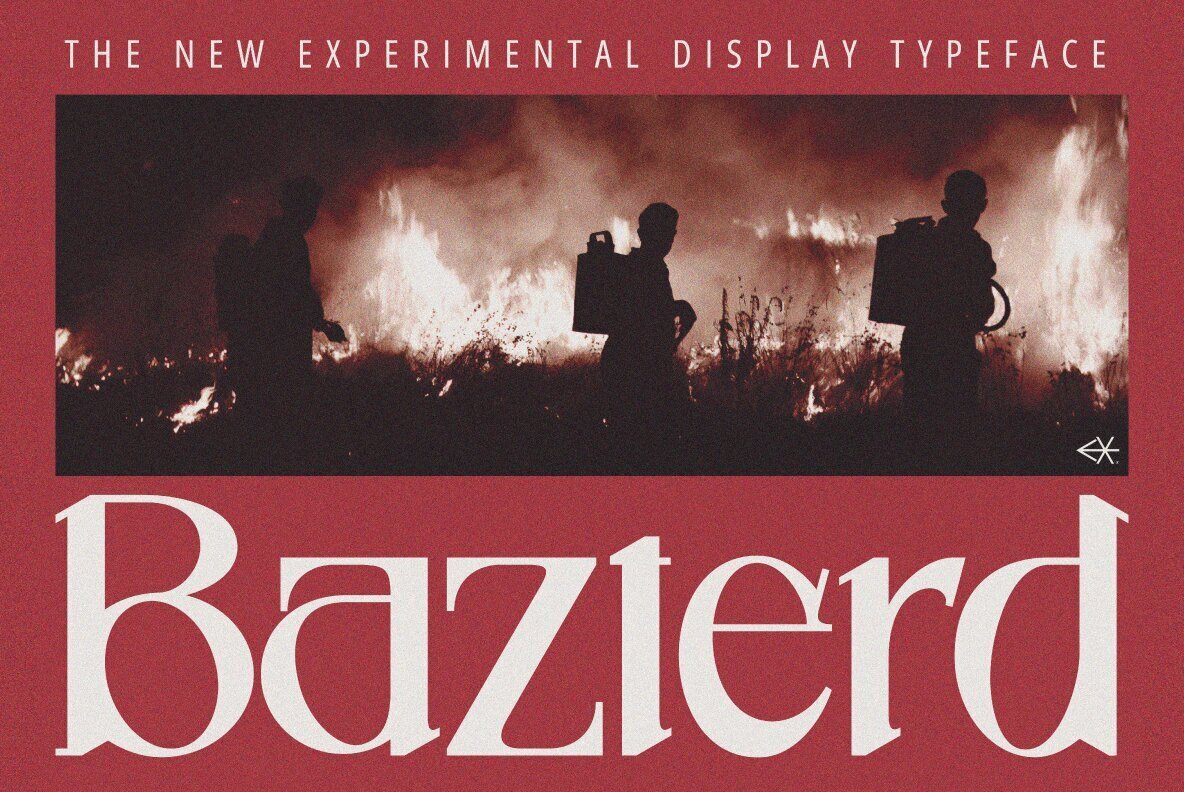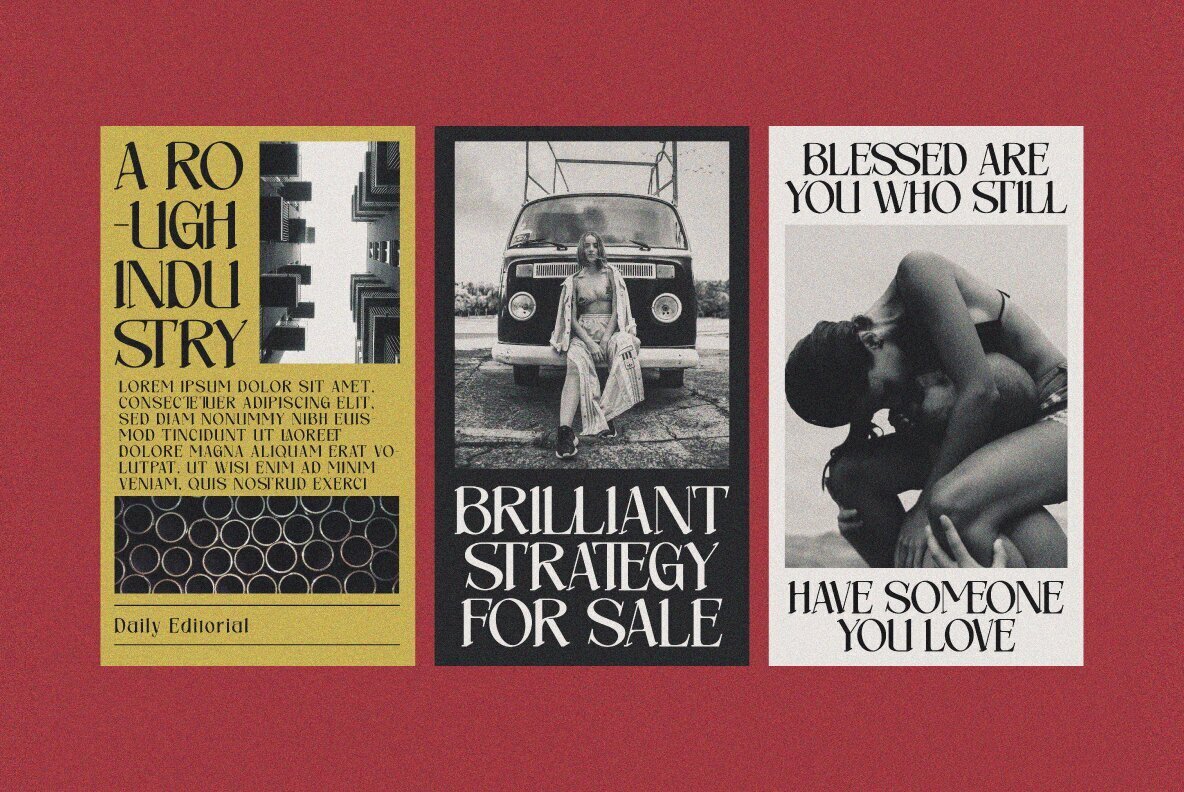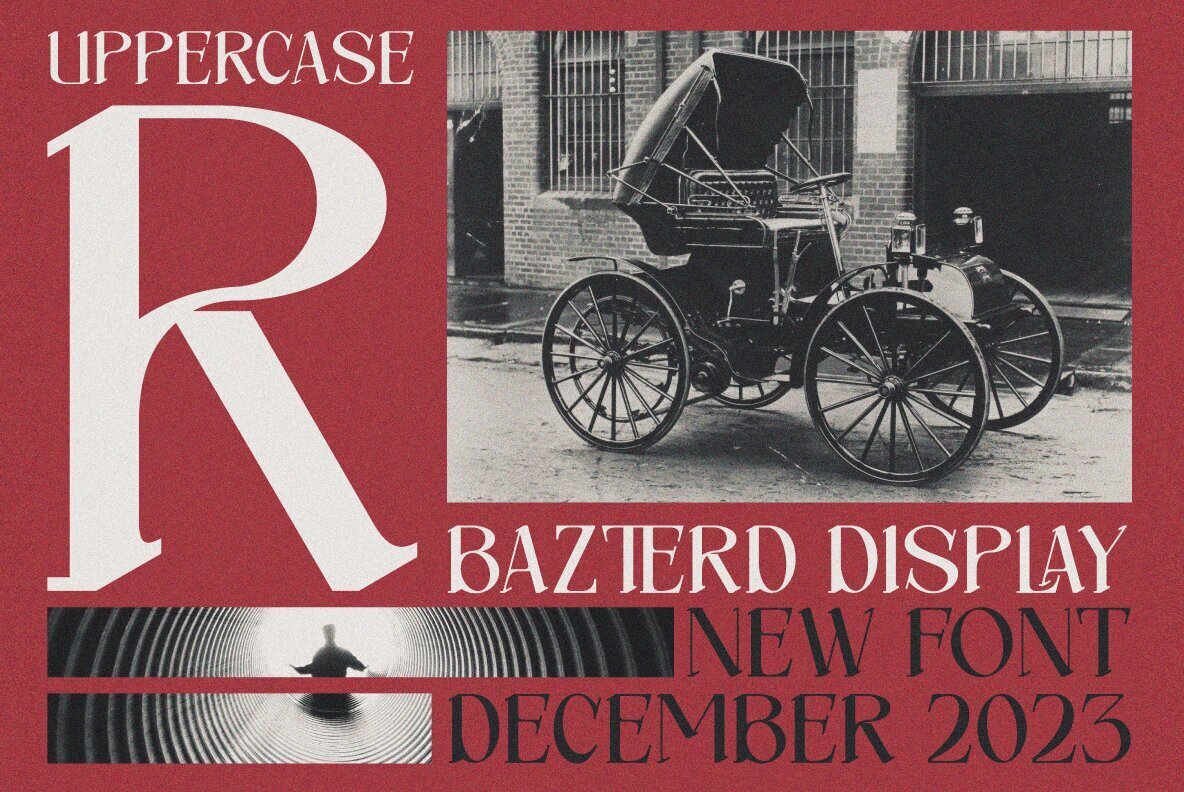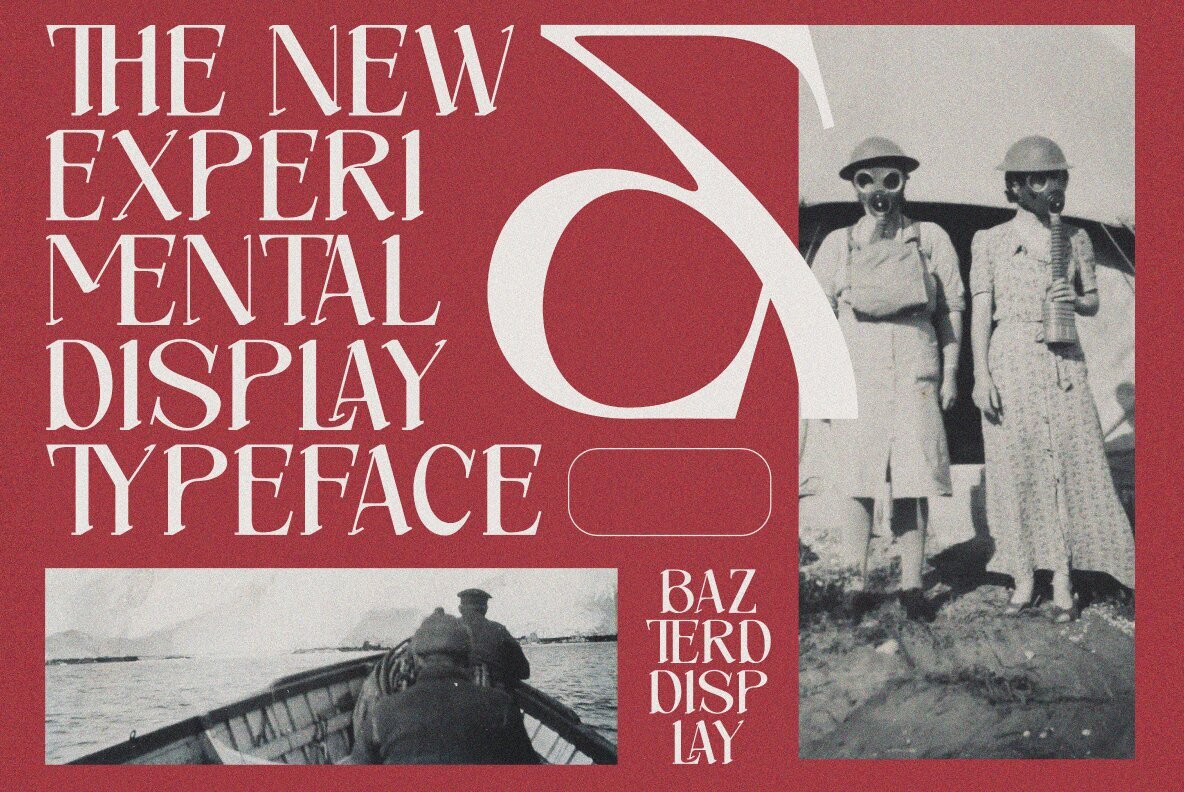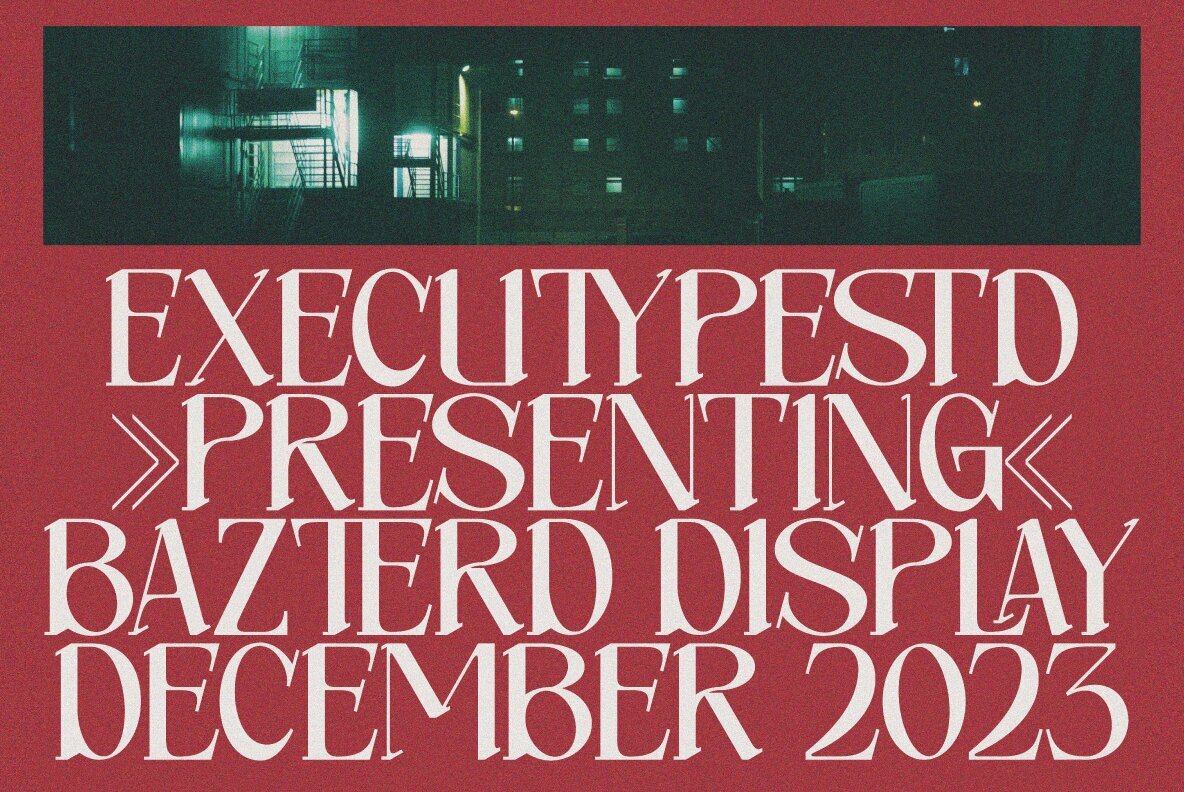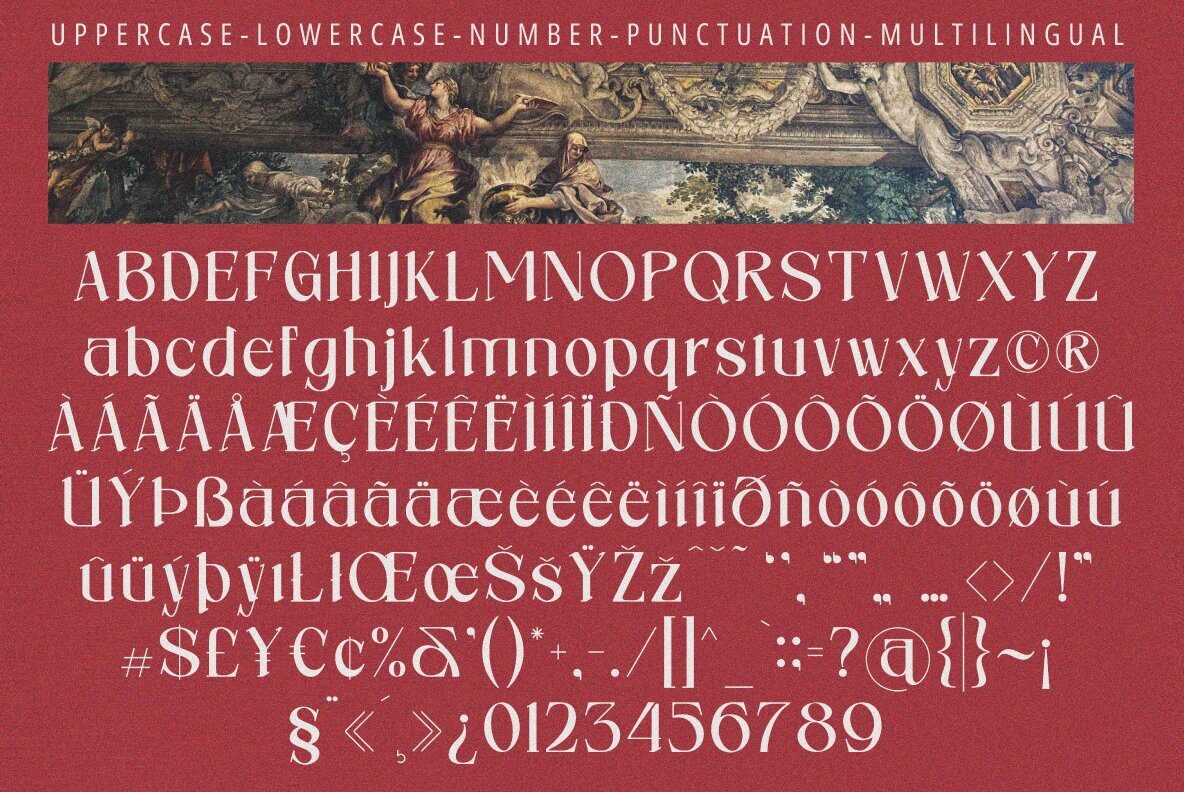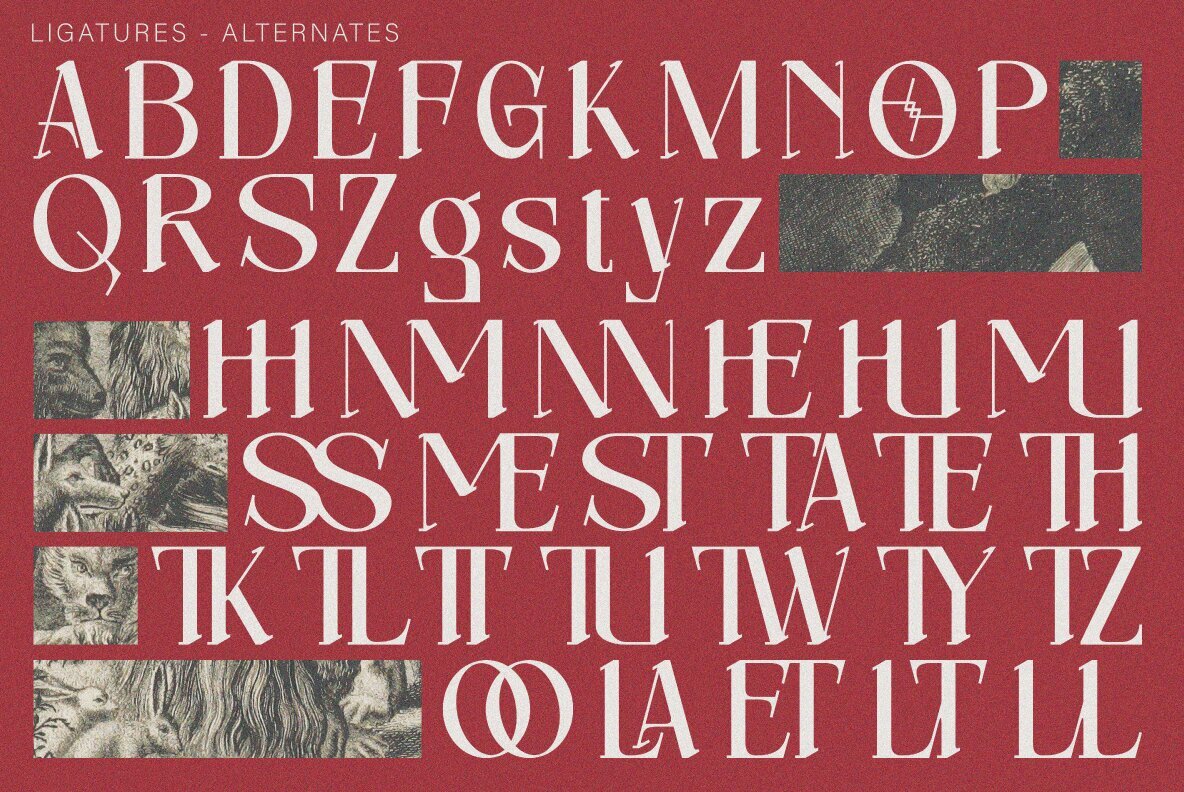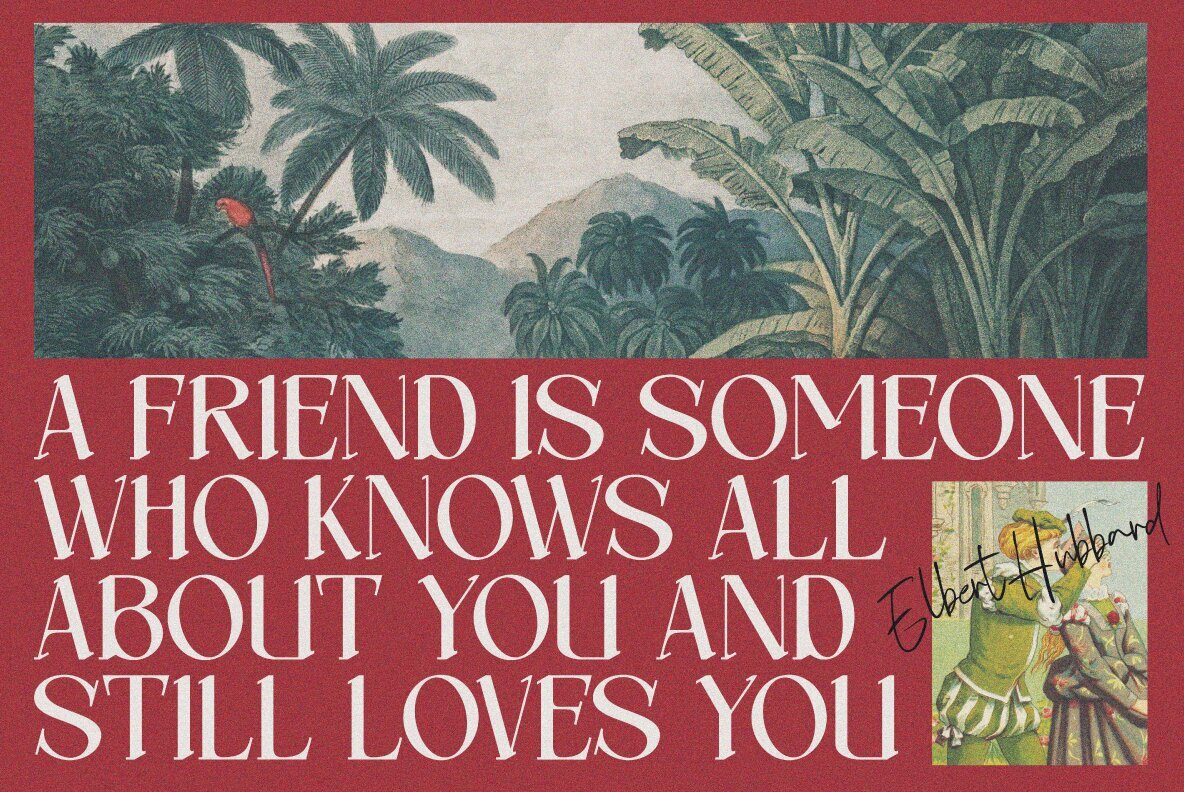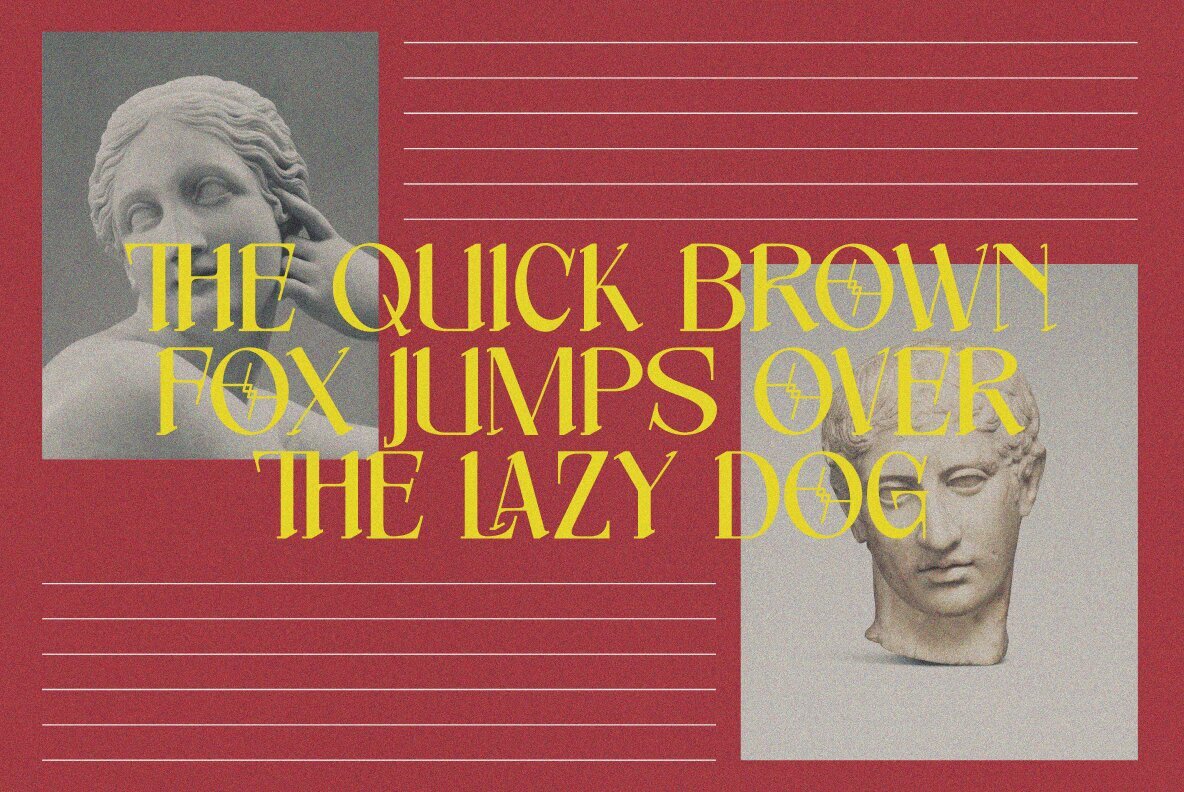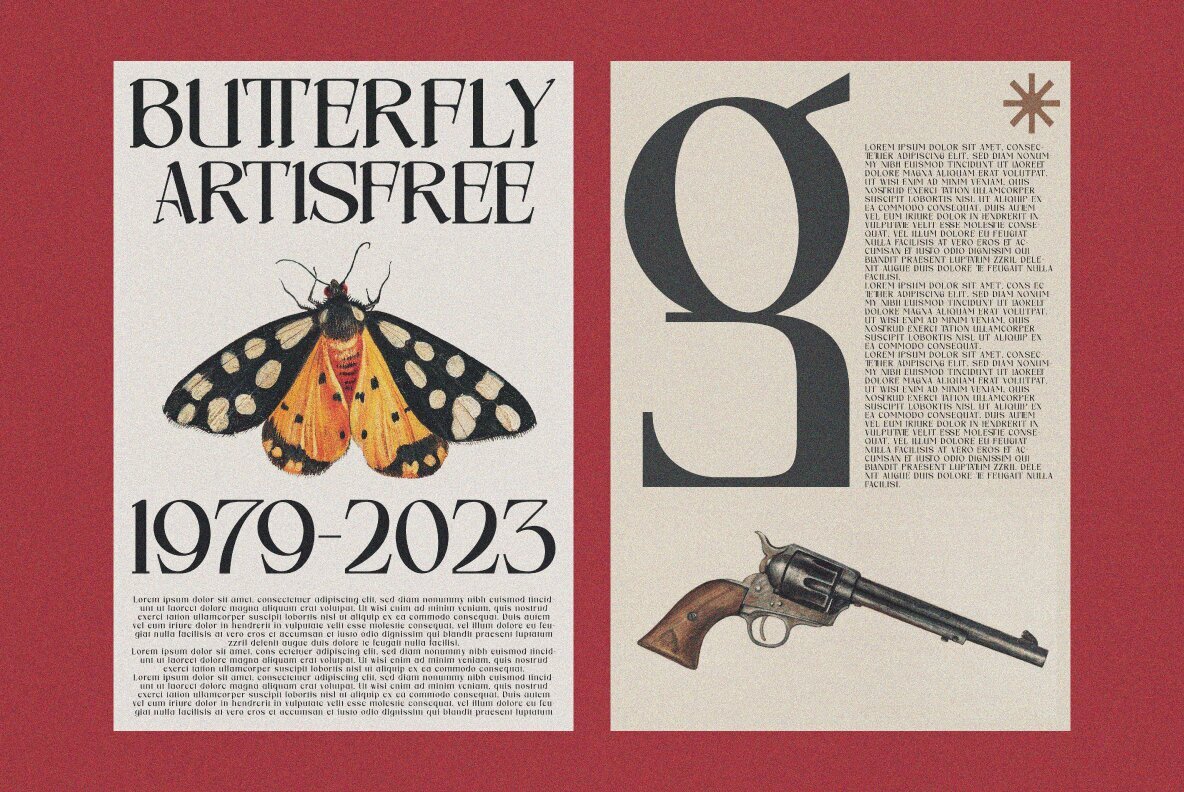
Bazterd Font
Bazterd Display Regular
Bazterd Display by Executype Studio is a bold and modern serif typeface with a distinct style. Its dynamic, dancing baseline adds a unique twist to any design, making it ideal for invitations, greeting cards, branding projects, business cards, quotes, posters, and more. This typeface balances impressive display quality with easy readability, thanks to its sharp triangular serifs and distinctive letter shapes that stand out particularly well in logo designs and editorial layouts. Bazterd Display is a versatile addition to any font collection, offering great pleasure in its use across various design applications.Bazterd Display: A Fresh Modern Serif